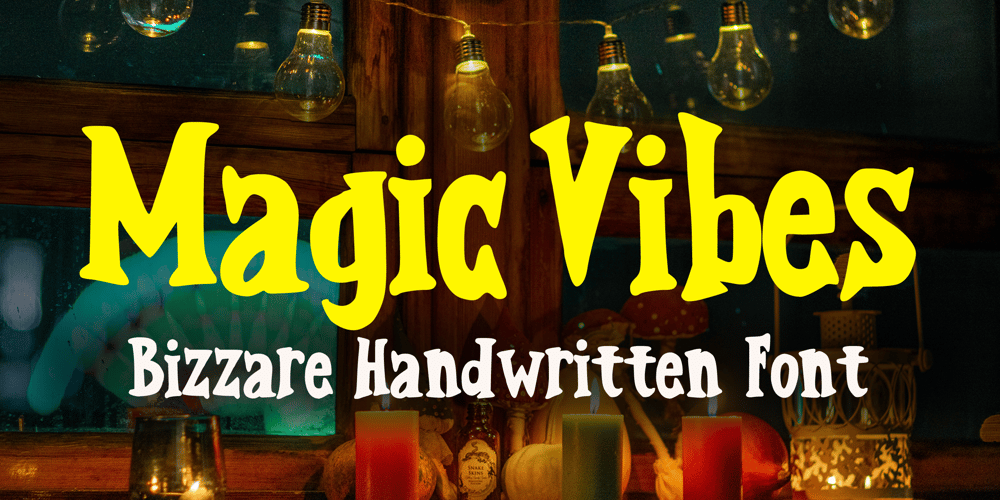
Magic Vibes
Magic Vibes font
Magic Vibes Font Family was designed by Gabriel Valentinus and published by Mvmet. Magic Vibes contains 1 styles and family package options. Magic Vibes is your perfect font if you need something magical themed. You can use it for anything ranging from t-shirts, kids’ book designs, and greeting cards to stickers and posters, or anything that needs a casual touch. Fall in love with its incredibly versatile style, and use it to create lovely designs!